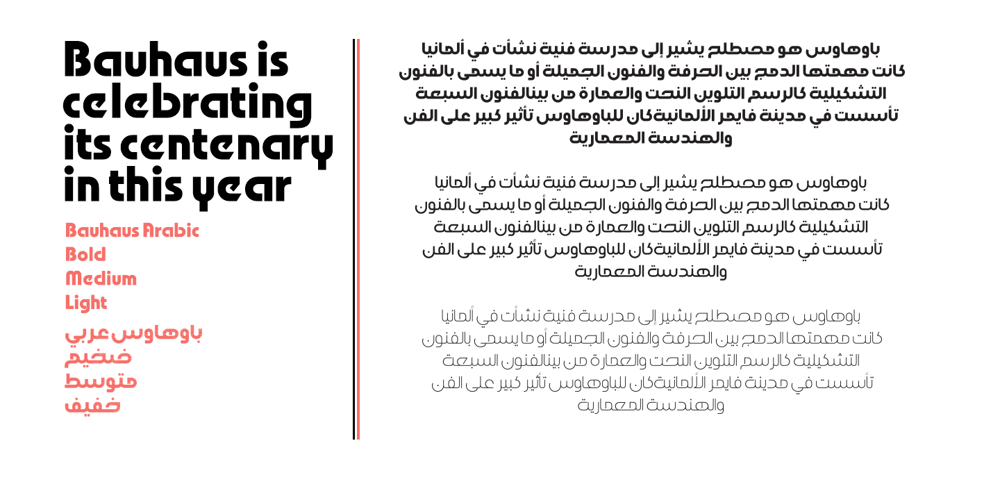
Bauhaus Arabic Font Family was designed by Naghi Naghashian and published by Naghi Naghachian. Bauhaus Arabic contains 3 styles and family package options. Bauhaus is celebrating its centenary in this year. For the Bauhaus’s 100th anniversary year, art and design museums and galleries around the world are hosting exhibitions and events. The publication of „Bauhaus Arabic“ font family is my contribution to celebrate this event. Bauhaus Arabic is a sans-serif font family designed by Naghi Naghashian in tree weights. Bauhaus Arabic Light, Bauhaus Arabic Medium and Bauhaus Arabic Bold. It is extremely legible even in very small size. This font family is a contribution to modernisation of Arabic typography, gives the font design of Arabic letters real typographic arrangement und provides more typographic flexibility. Bauhaus Arabic supports Arabic, Persian ( Farsi ) and Urdu. It also includes proportional and tabular numerals for the supported languages. Bauhaus Arabic design fulfills the following needs: A Explicitly crafted for use in electronic media fulfills the demands of electronic communication. B Suitability for multiple applications. Gives the widest potential acceptability. C Extreme legibility not only in small sizes, but also when the type is filtered or skewed, e.g., in Photoshop or Illustrator. Bauhaus Arabic’s simplified forms may be artificial obliqued in InDesign or Illustrator, without any loss in quality for the effected text. D An attractive typographic image. Bauhaus Arabic was developed for multiple languages and writing conventions. Bauhaus Arabic supports Arabic, Persian and Urdu. It also includes proportional and tabular numerals for the supported languages. E The highest degree of calligraphic grace and the clarity of geometric typography.